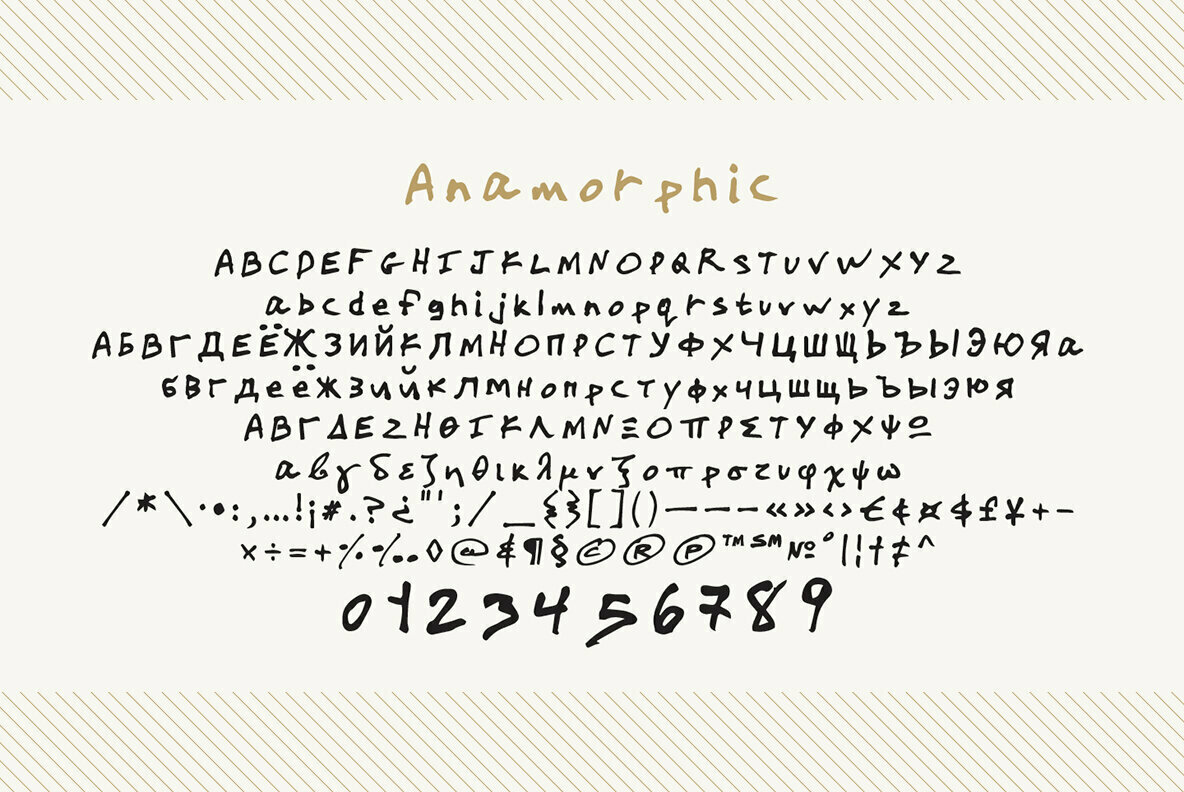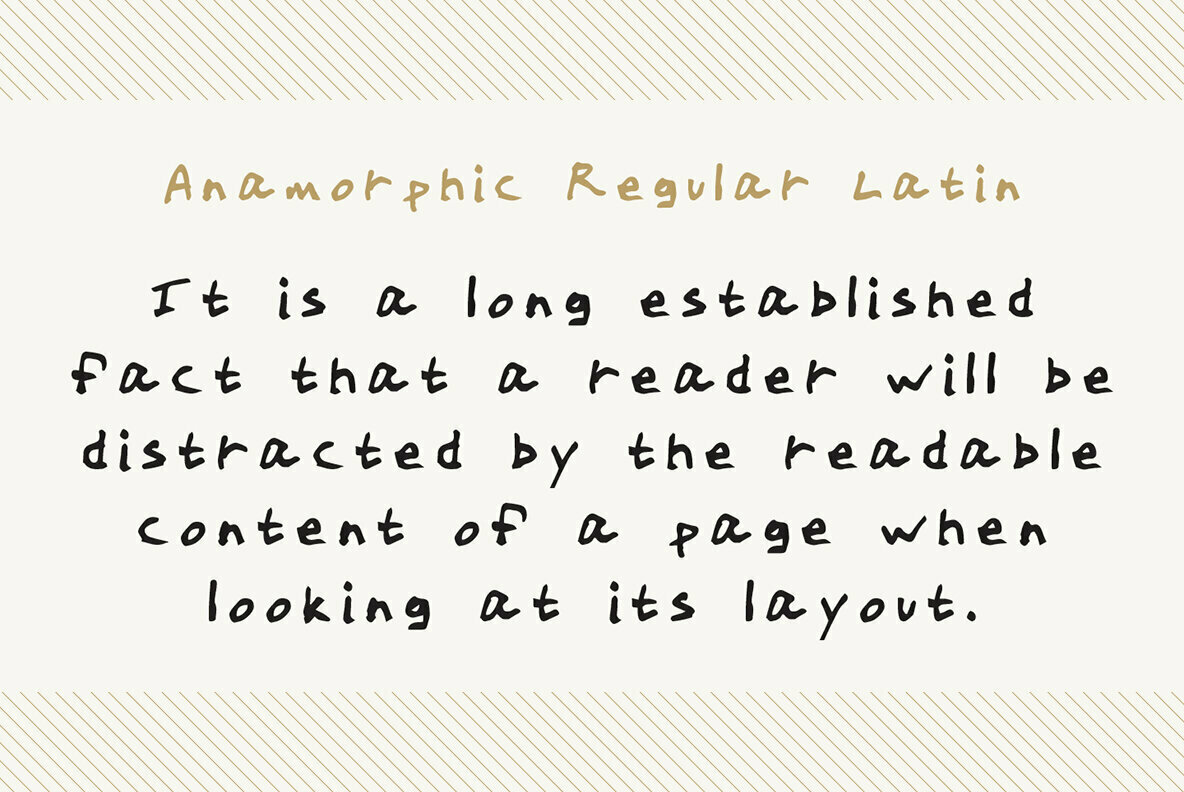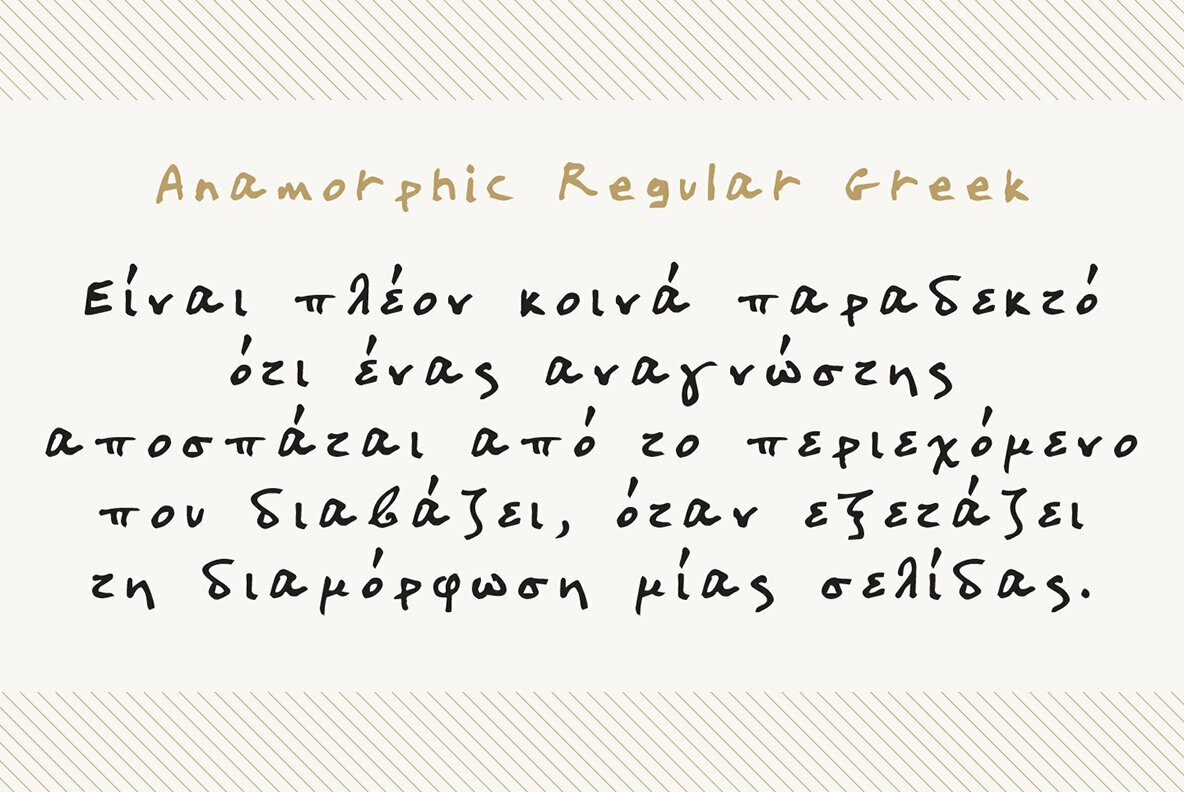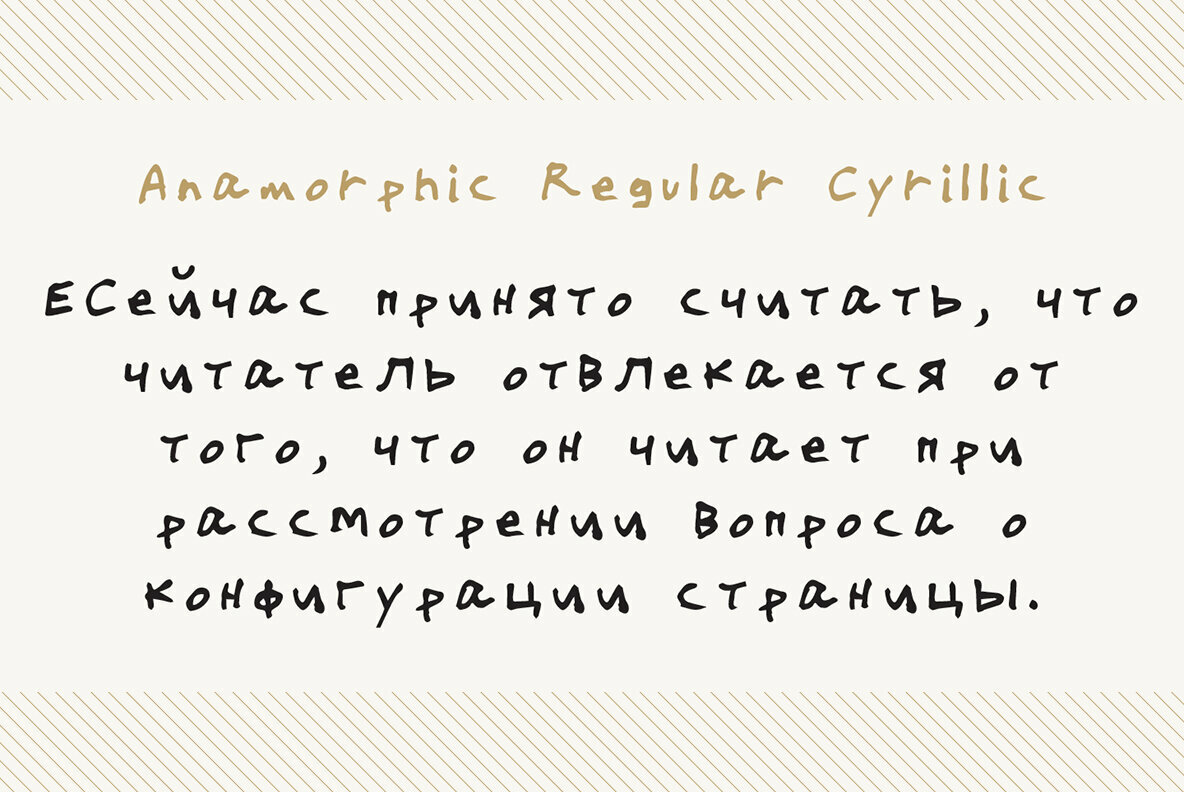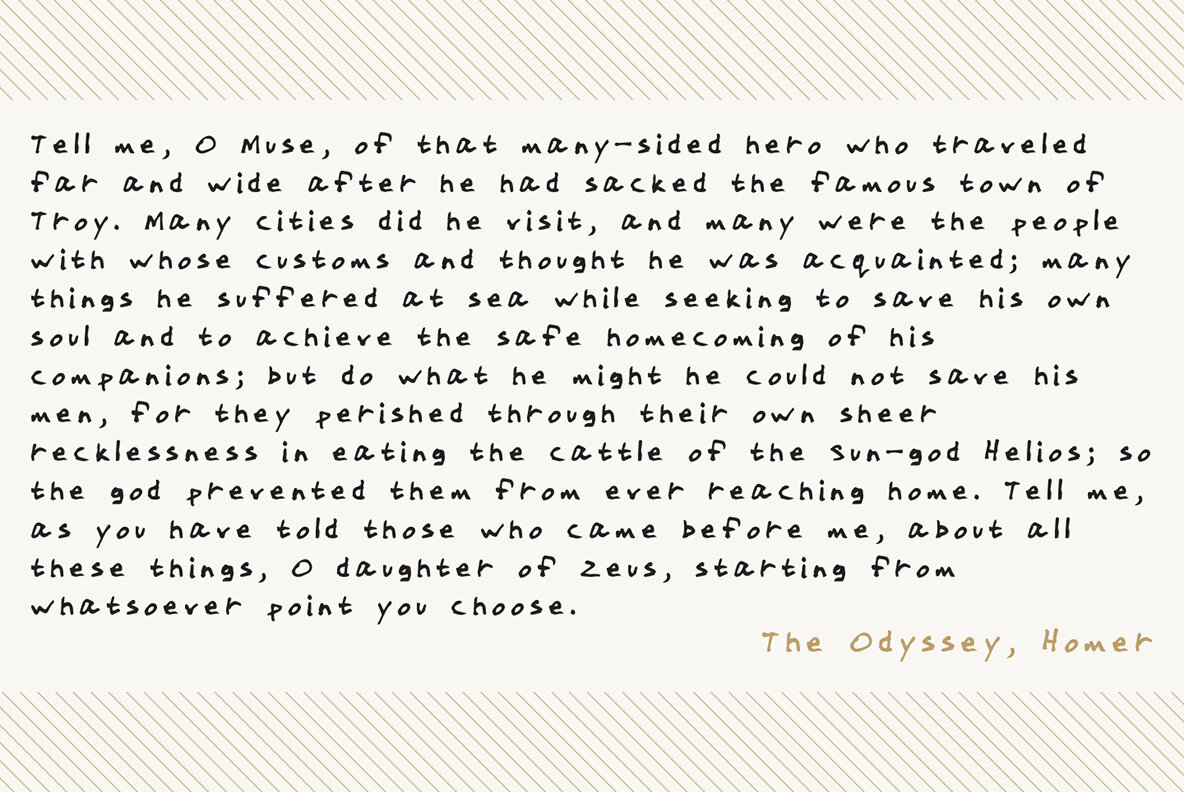
Anamorphic Font
Anamorphic is a display monospace handwriting font. The typeface is a distinct hand drawn font using a felt tip marker. The Anamorphic name is derived from Greek words meaning “formed again”. Anamorphic is great for display work, invitations, writing, architecture, posters, logos and headings.